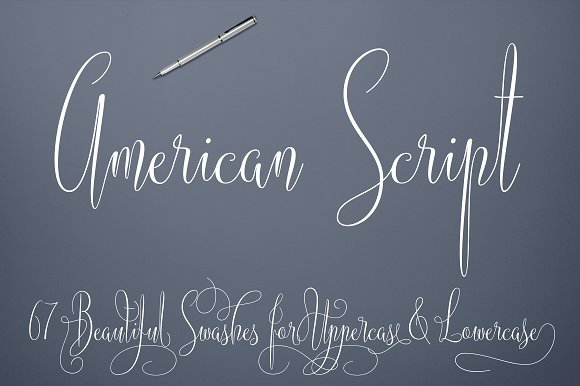
A Timeless Classic: The Allure of American Script Font
Have you ever found yourself doodling in a notebook, letting your pen wander across the page as you try to capture the perfect handwritten script? For many of us, this moment of creative freedom is a joy we revisit whenever we can. It’s a chance to break free from the constraints of digital design and tap into the raw, emotive power of handwriting.
For designers looking to add a touch of elegance and sophistication to their work, the American Script Font is a timeless classic that never goes out of style. Created by Darwinoo, this beautiful font is designed to evoke the charm of traditional American script writing, with its flowing lines and intricate flourishes.
Whether you’re working on a wedding invitation, a branding project, or simply a personal letter to a loved one, the American Script Font is a valuable addition to any designer’s toolkit. Its versatility and classic appeal make it a must-have for anyone looking to add a touch of warmth and personality to their work.
Key Features of American Script Font
- Font Family: American Script
- Unique Characteristics: Whimsical, handwritten style with flourishes and swashes, ideal for creating a romantic or vintage atmosphere
Designer Review: American Script Font
As a designer, I’ve had the chance to work with the American Script Font, and here’s my honest review. ✨
- The font’s classic feel is perfect for vintage-inspired projects. It adds a touch of nostalgia and elegance to any design.
- The script font is highly legible, making it easy to read, even in smaller font sizes.
- The font comes in a variety of weights and styles, giving designers plenty of options for customization.
- ⚠️ The font can be too ornate for some designs, making it difficult to read or overwhelming the overall layout.
- ⚠️ Some characters may not be as smooth or consistent, which can affect the overall quality of the design.
Overall, the American Script Font is a great choice for designers looking to add a classic, vintage touch to their projects. While it may have some limitations, the font’s strengths far outweigh its weaknesses. With careful use and customization, this font can be a valuable addition to any designer’s toolkit.
Tips for Getting the Most Out of American Script Font
Use American Script Font for titles, headings, and emphasis to add a touch of elegance and sophistication to your designs. Experiment with different font sizes and colors to create visual hierarchy and balance in your design. You can also combine American Script Font with other fonts to create a unique and eye-catching design.
American Script Font is commonly used for wedding invitations, baby shower invitations, and other special occasion invitations. It’s also used for titles, headings, and emphasis in designs for fashion, beauty, and lifestyle brands.